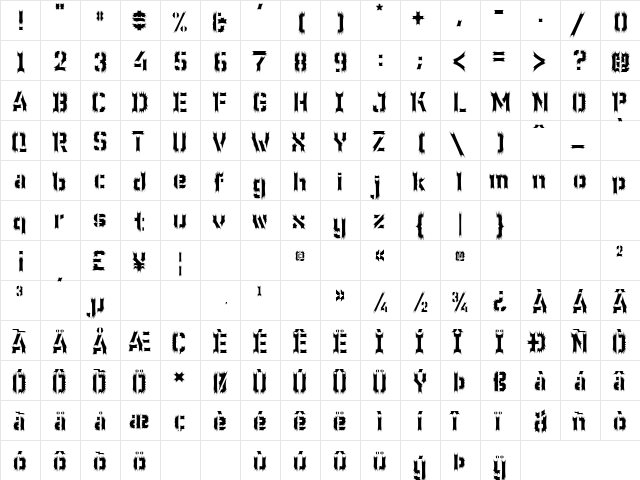
WC Wunderbach Wimpern DemiBold
| Foundry | WC Fonts |
| Designer | WC Fonts |
Design Context for WC Wunderbach Wimpern Typeface
WC Wunderbach Wimpern is a composed and adaptable typeface that performs quietly and consistently across a wide range of design contexts. The heavy weight commands attention and anchors typographic hierarchies.